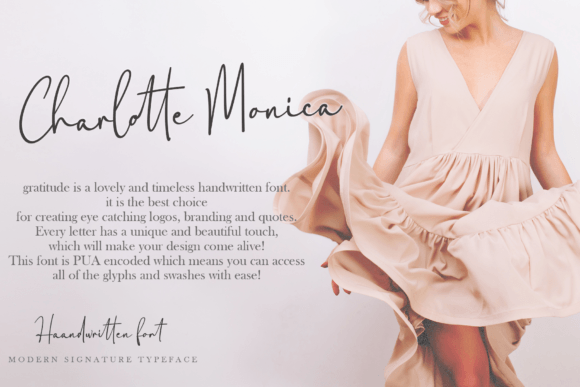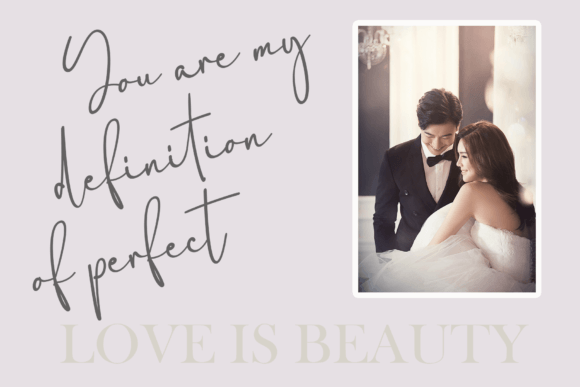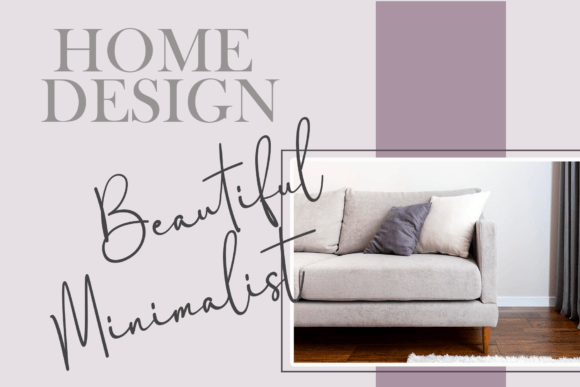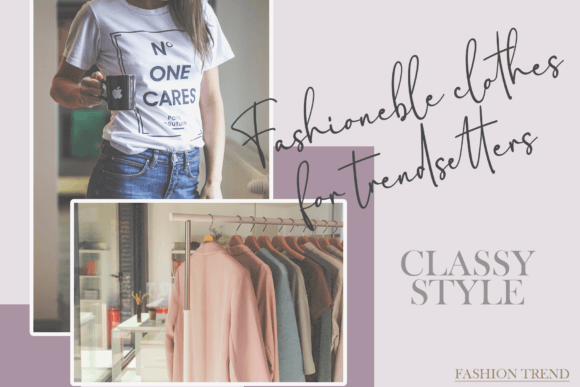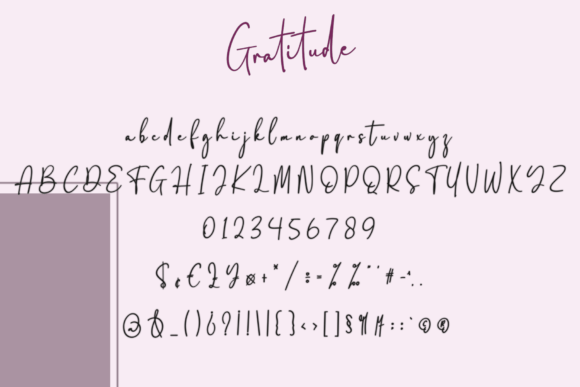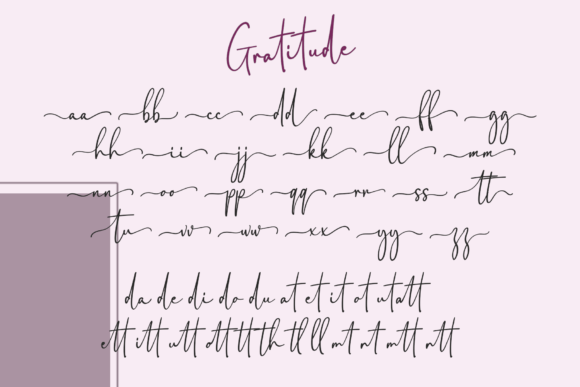
The Power of Gratitude: A Sweet and Friendly Handwritten Font
I’ll never forget the time I was working on a wedding invitation project, and I just couldn’t seem to find the right font. My client wanted something fresh, casual, and lovely – and I was determined to deliver. That’s when I stumbled upon the Gratitude Font ✨. It was like a breath of fresh air! In this article, I’ll share my experience with this beautiful font, and provide you with a comprehensive guide on how to use it in your designs.
I’ve had the pleasure of working with the Gratitude Font on several projects, and here’s what I think:
- ✨ It’s incredibly versatile and works well for a variety of design projects, from wedding invitations to social media graphics.
- ✅ The handwritten style is sweet, friendly, and approachable – perfect for creating an emotional connection with your audience.
- ✅ The font comes with a range of OpenType features, including glyphs and stylistic alternates, which allow for endless creative possibilities.
Of course, no font is perfect, and there are a few quirks to be aware of:
- 🤔 Some of the letters may appear a bit too ‘connected’ for certain design applications – but this can be easily adjusted with kerning and tracking.
- ⚠️ The font may not work well for very large or very small text sizes – but this is true for most handwritten fonts.
The Designer Inspiration Behind Gratitude Font
The Gratitude Font was designed with love and care by a talented type designer who wanted to create a font that would inspire people to express gratitude and kindness. The designer’s goal was to create a font that would be both beautiful and approachable – perfect for writing heartfelt letters, creating wedding invitations, or simply adding a personal touch to your designs.
| Font Name | Gratitude Font |
| Author | Black line |
| What is the Gratitude Font best used for? | The Gratitude Font is ideal for wedding invitations, cards, and any other design that requires a lovely, handwritten touch. |
| Is the Gratitude Font suitable for large text sizes? | While the Gratitude Font can work well for large text sizes, it may not be the best choice for very large or bold applications – but this depends on your specific design needs. |
| Does the Gratitude Font come with OpenType features? | Yes, the Gratitude Font comes with a range of OpenType features, including glyphs and stylistic alternates – which allow for endless creative possibilities. |